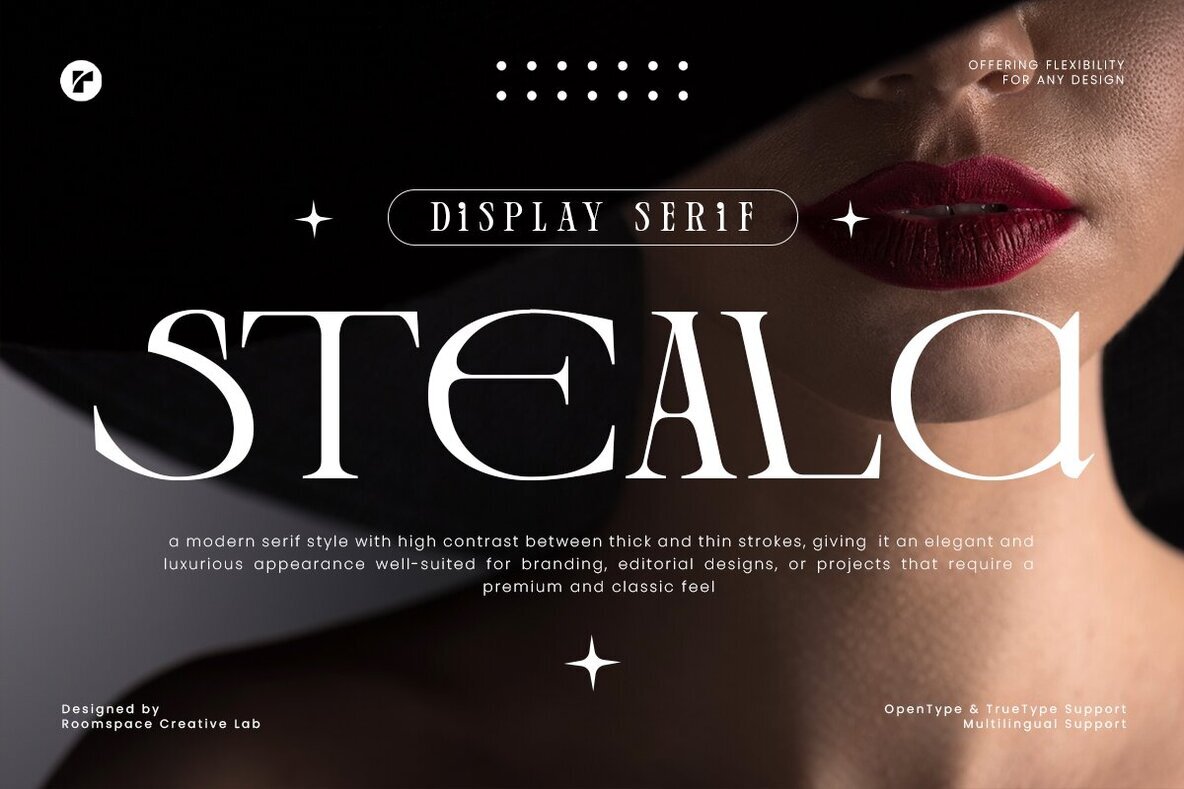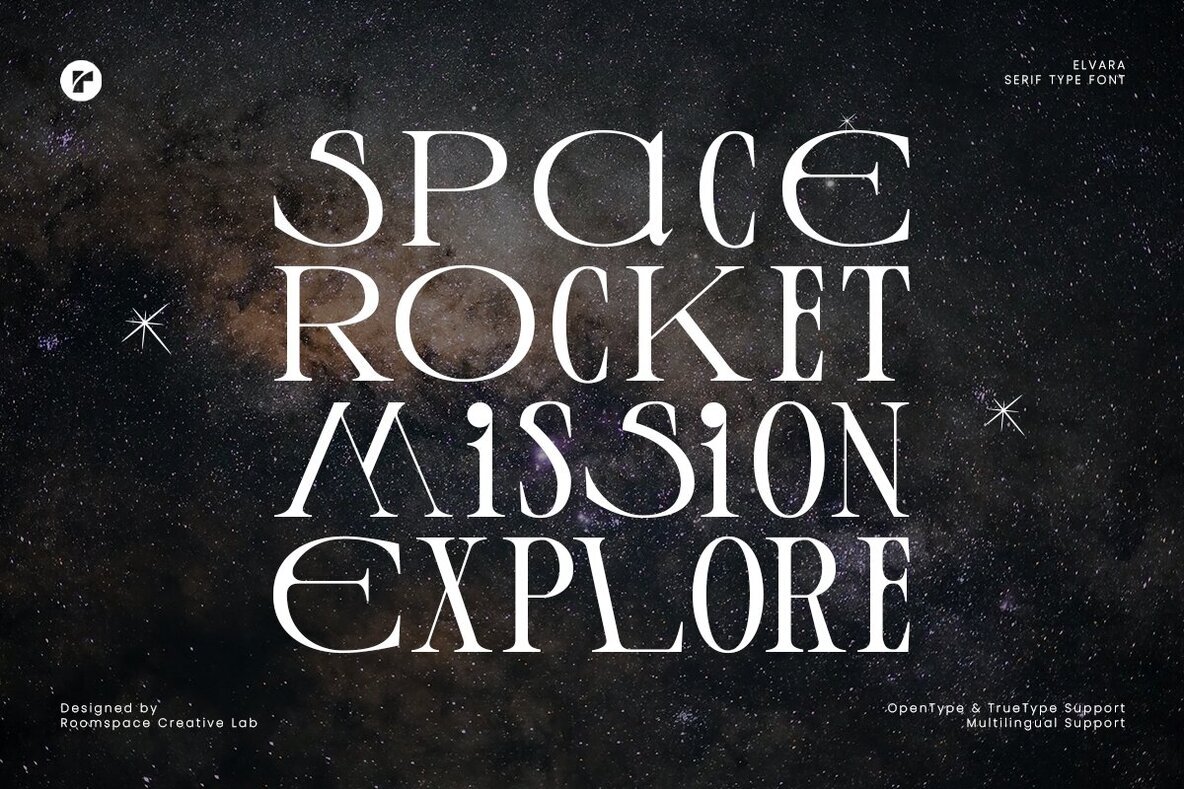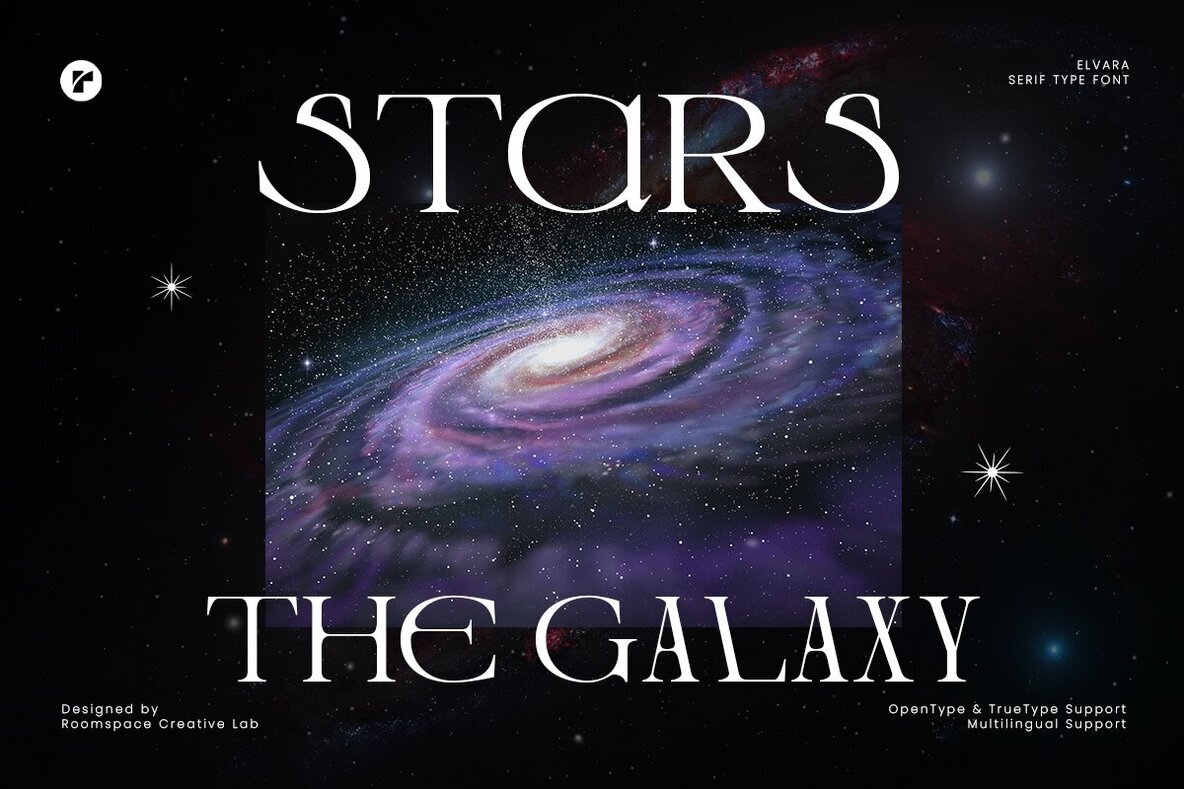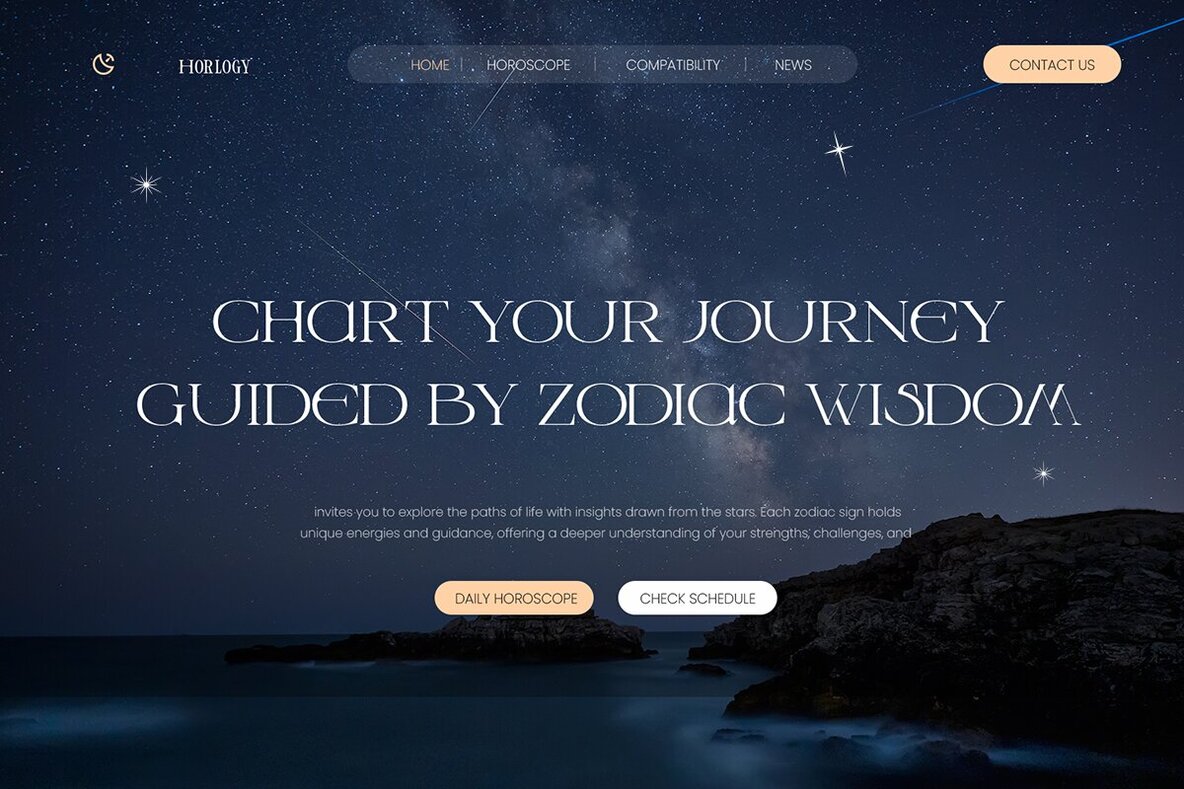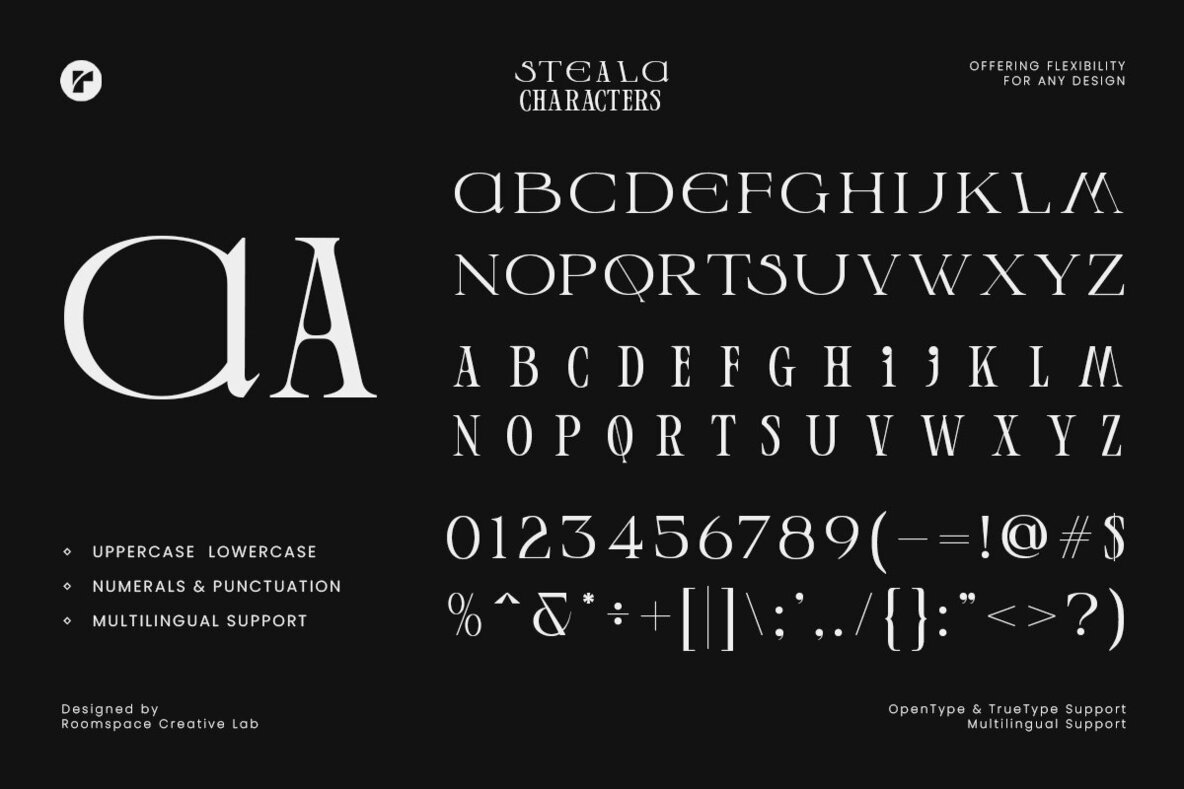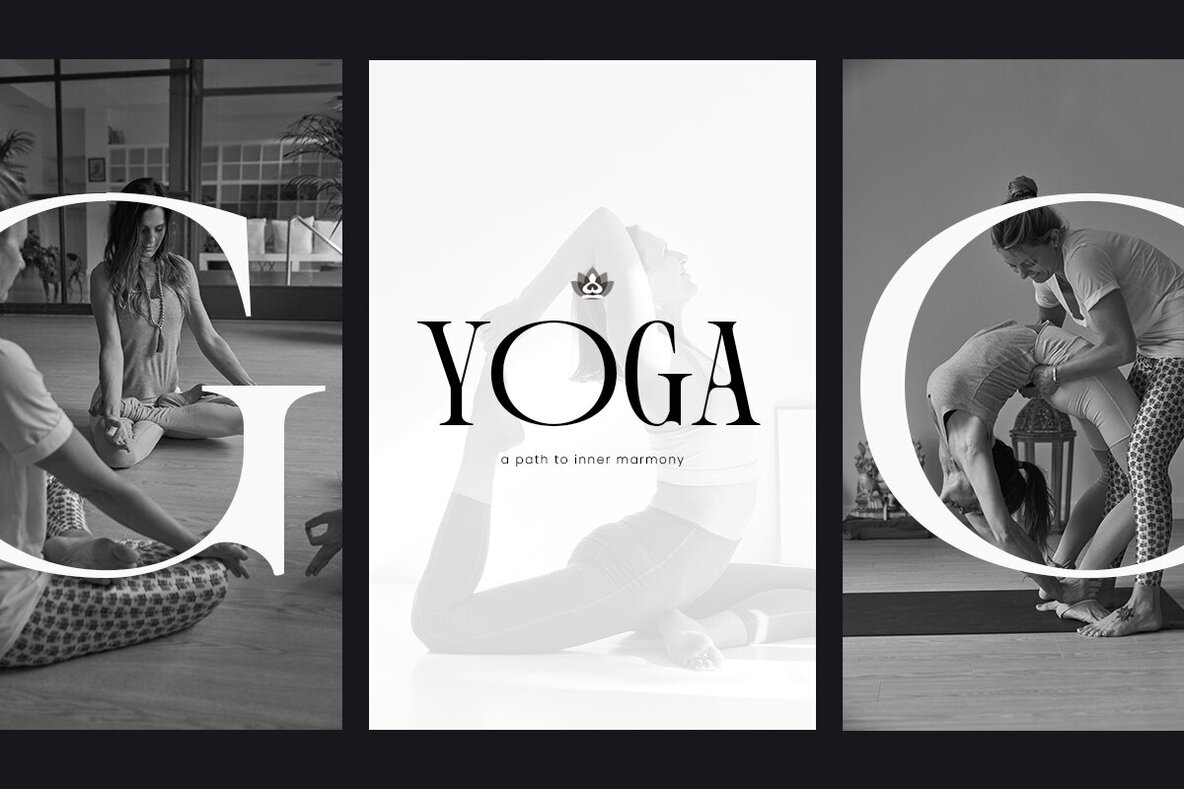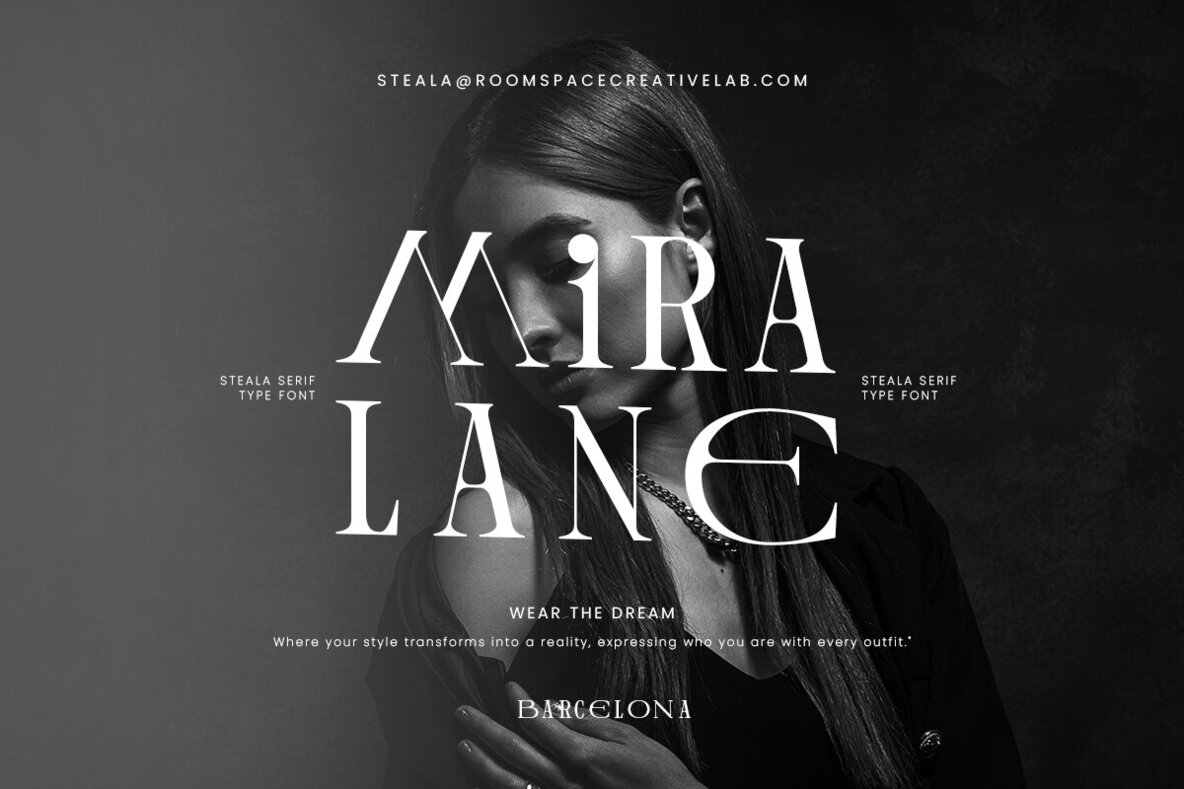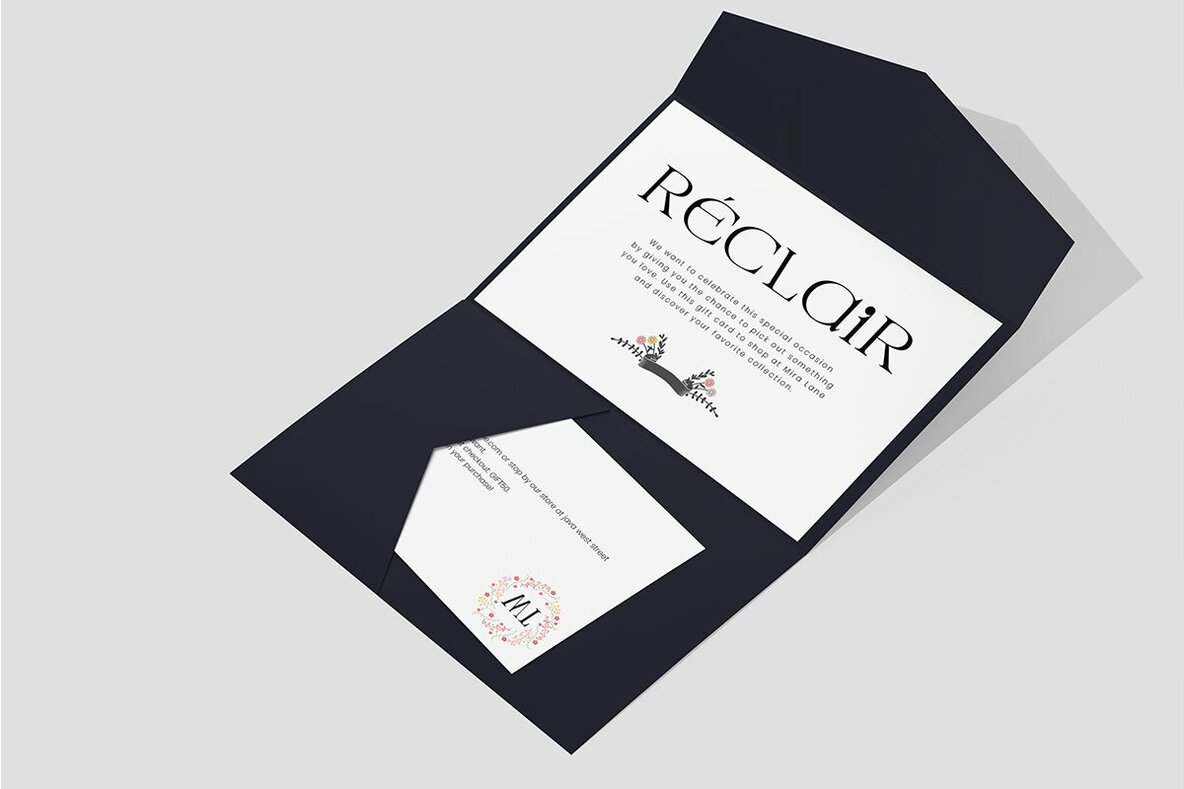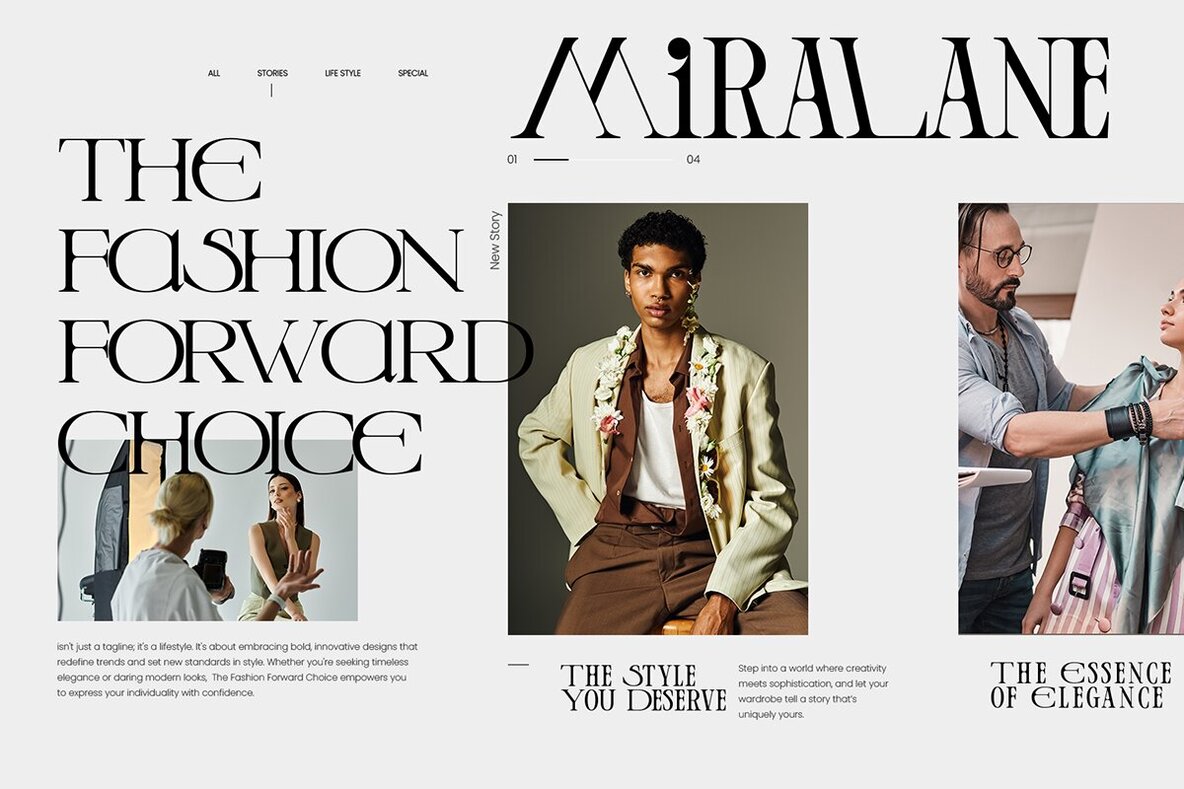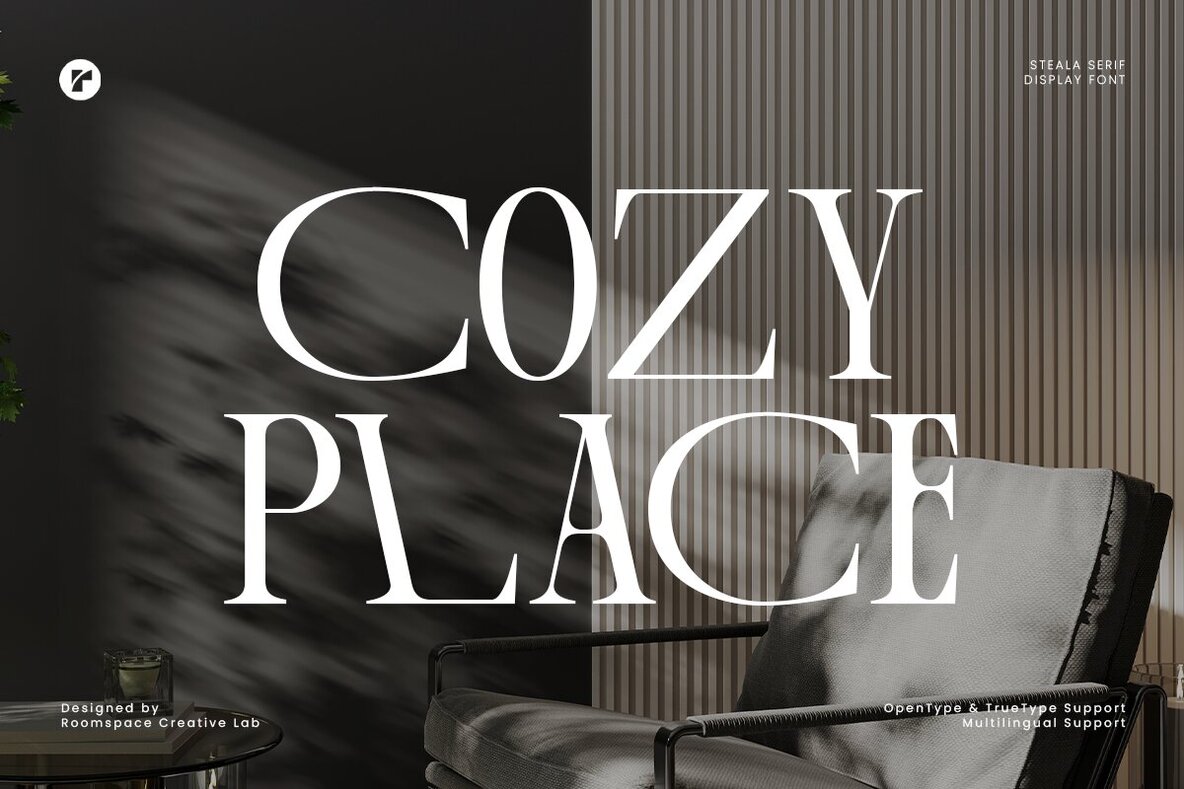
Steala Font
Steala Regular
Discover Steala, a modern display serif font designed to bring elegance and luxury to your creative projects. Its high-contrast strokes, transitioning effortlessly between thick and thin lines, create a distinctive and premium aesthetic. This nuanced design ensures that Steala stands out, making it a perfect choice for editorial layouts, branding endeavors, or any creative work seeking sophistication. The stylish curves and clean serif details make Steala an ideal fit for projects like logos, high-end branding, wedding invitations, and luxury product packaging. With its combination of uppercase and lowercase letters, OpenType and TrueType support, and broad multilingual compatibility, Steala delivers a timeless, refined look that adds elegance and uniqueness to your design ventures.Steala Display Serif Font